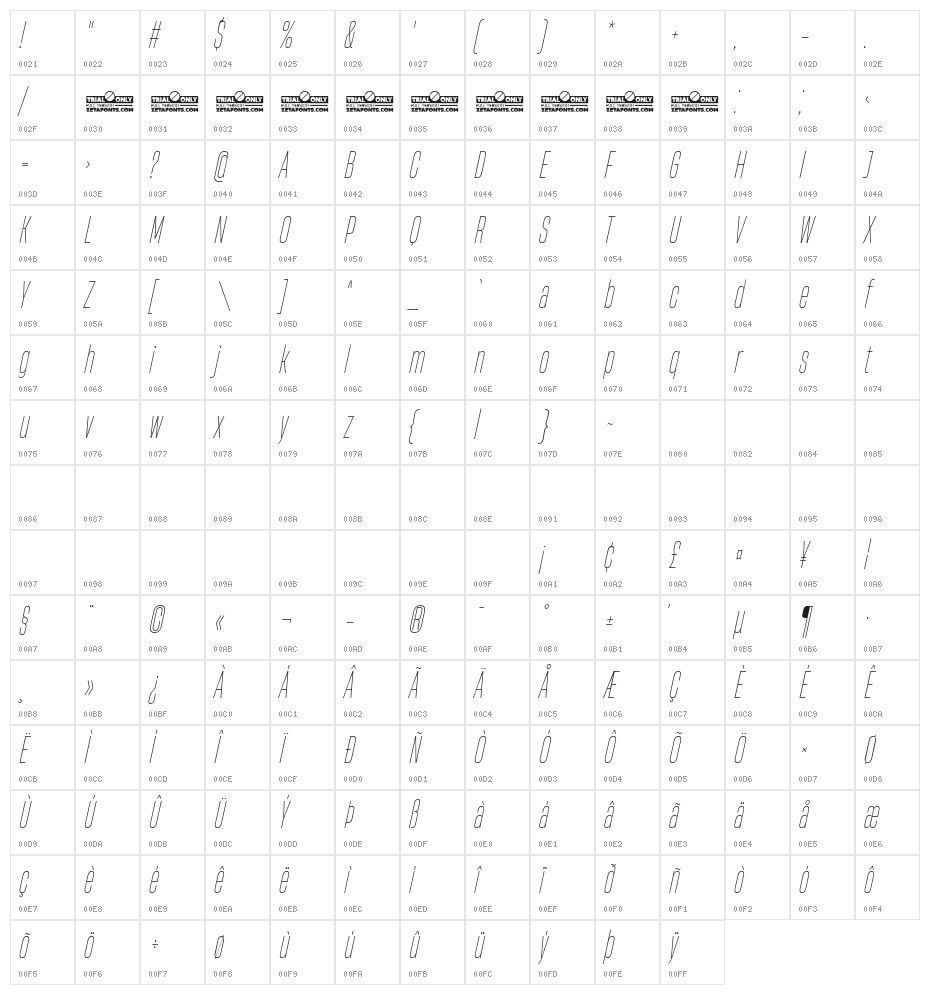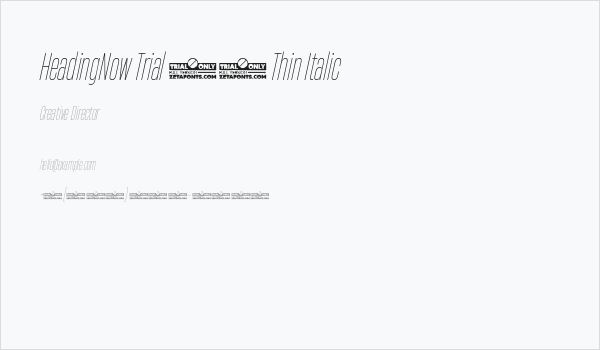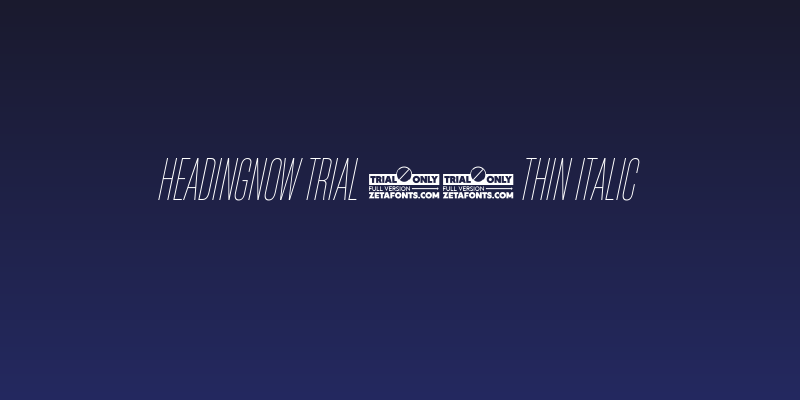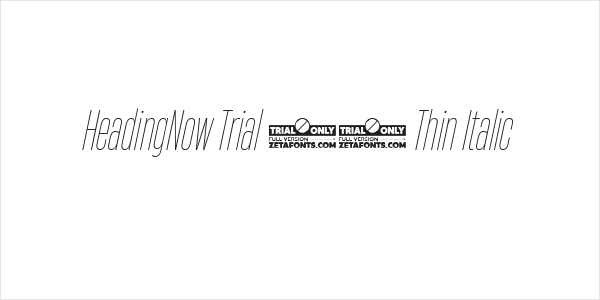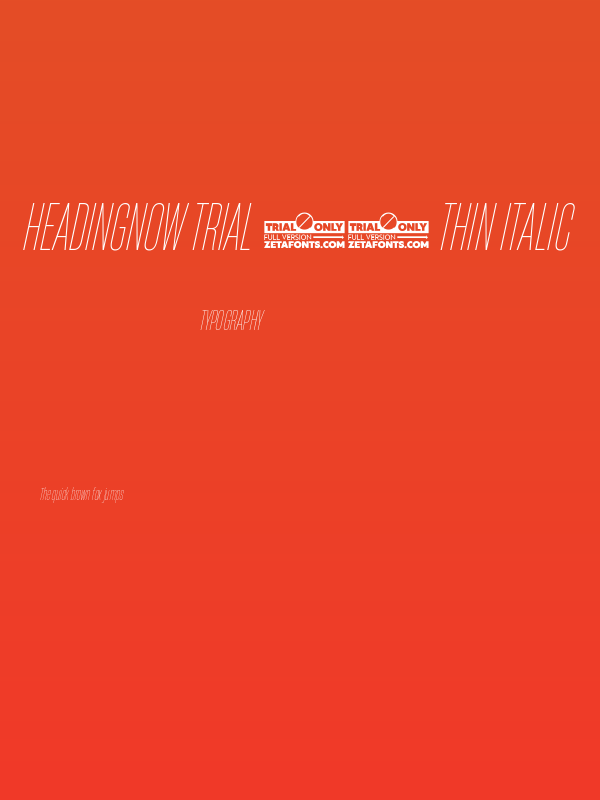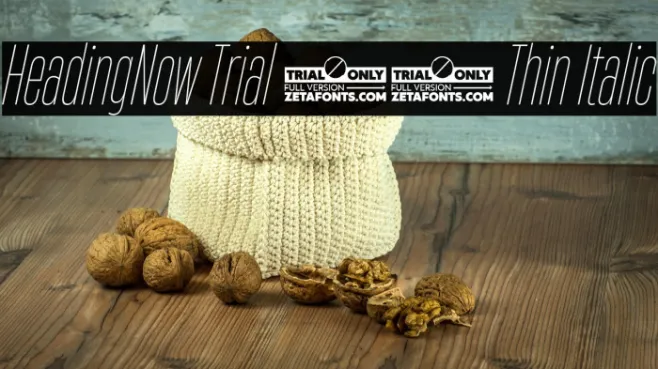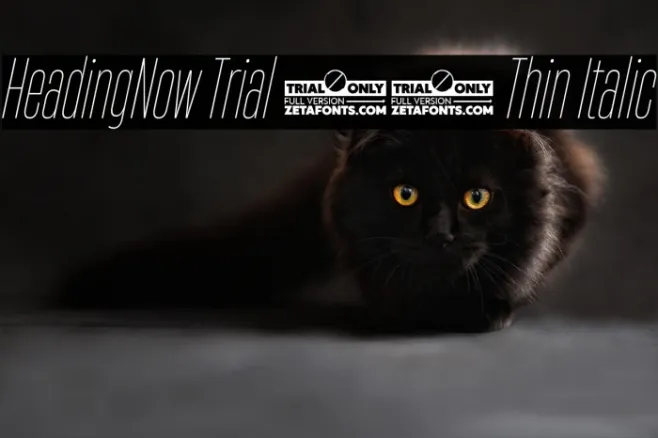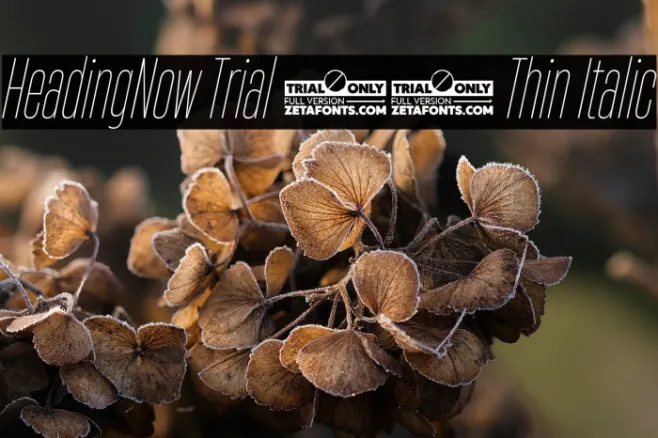
HeadingNow Trial 21 Thin Italic Font
HeadingNow Trial 21 Thin Italic Description
This font presents a sleek and modern aesthetic with its thin, elongated letterforms. The italic style adds a dynamic and elegant touch, making it suitable for contemporary design projects. The uppercase and lowercase letters maintain a consistent slant, contributing to a cohesive appearance. The numerals and special characters are designed with the same thin strokes, ensuring uniformity across all glyphs. The overall design is minimalistic, with a focus on clean lines and simplicity, making it versatile for various applications.
| Proposed Projects | Ideal for fashion magazines, modern branding, editorial layouts, and minimalist posters. |